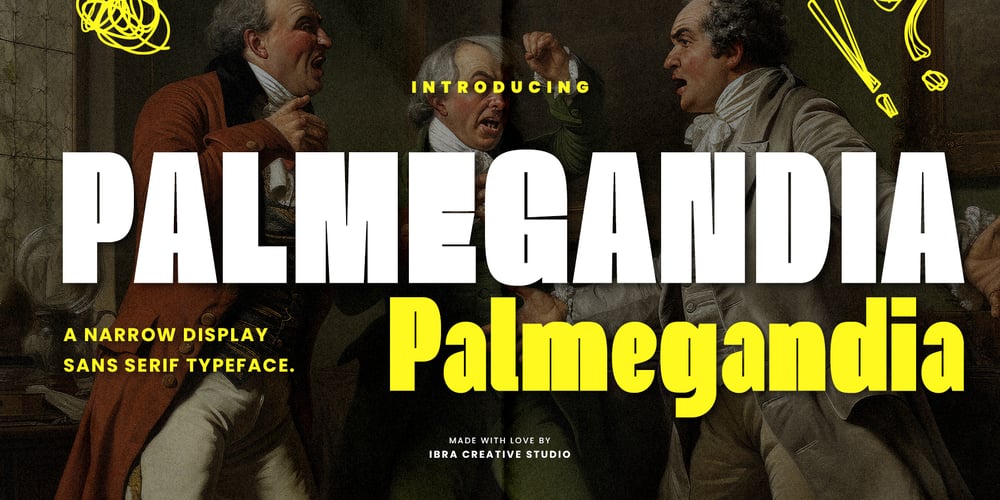
Palmegandia
Palmegandia font
Palmegandia Font Family was designed by Roisatul Azizah and published by IbraCreative. Palmegandia contains 1 styles and family package options. Palmegandia – A Narrow Display Sans Serif TypefacePalmegandia is a sophisticated narrow display sans-serif typeface that effortlessly combines elegance with modern simplicity. Its slender letterforms exude a refined and contemporary aesthetic, making it ideal for applications where space is at a premium, such as headlines, banners, and logos. With a balanced blend of clean lines and subtle curves, Palmegandia maintains readability while infusing a sense of chic sophistication. The typeface’s versatility is evident in its ability to convey both a sense of professionalism and a touch of modern flair, making it a distinctive choice for design projects that demand a sleek and slender typographic presence.Palmegandia is perfect for branding projects, logo, wedding designs, social media posts, advertisements, product packaging, product designs, label, photography, watermark, invitation, stationery, game, fashion and any projects.Fonts include multilingual support for; Afrikaans, Albanian, Czech, Danish, Dutch, English, Estonian, Finnish, French, German, Hungarian, Italian, Latvian, Lithuanian, Norwegian, Polish, Portuguese, Slovak, Slovenian, Spanish, Swedish.